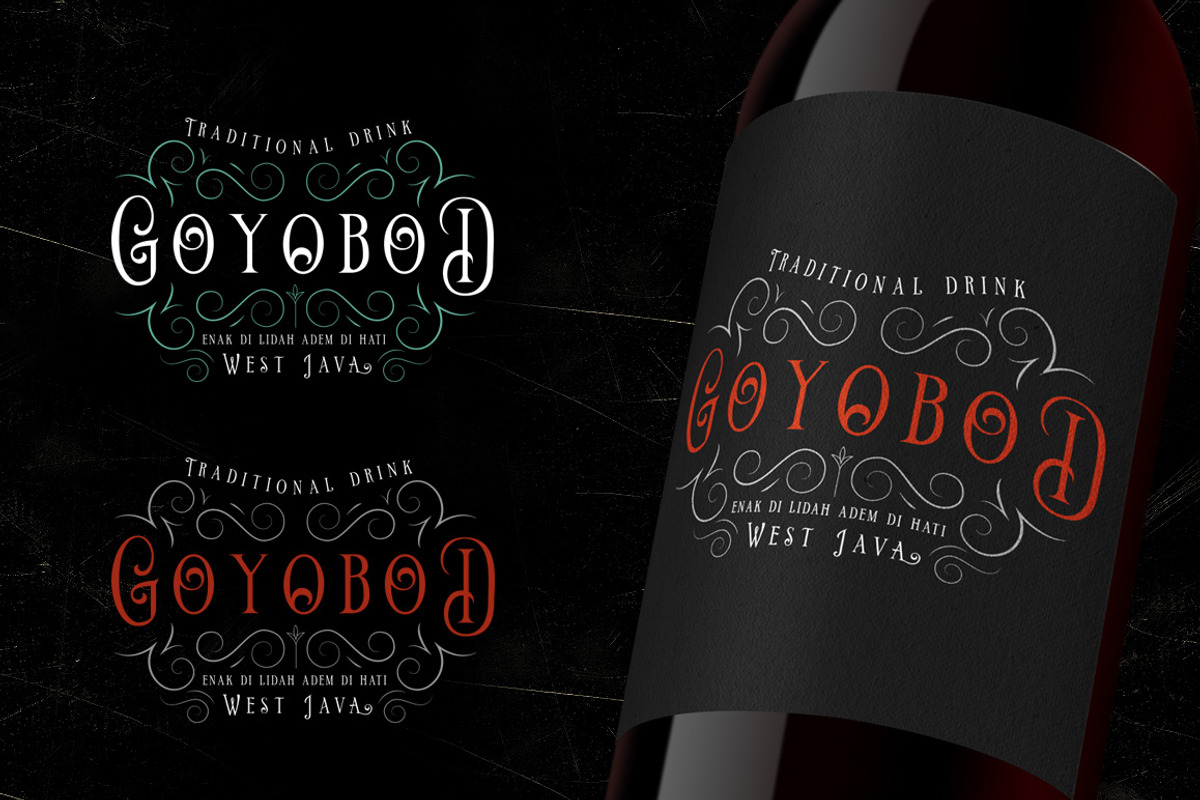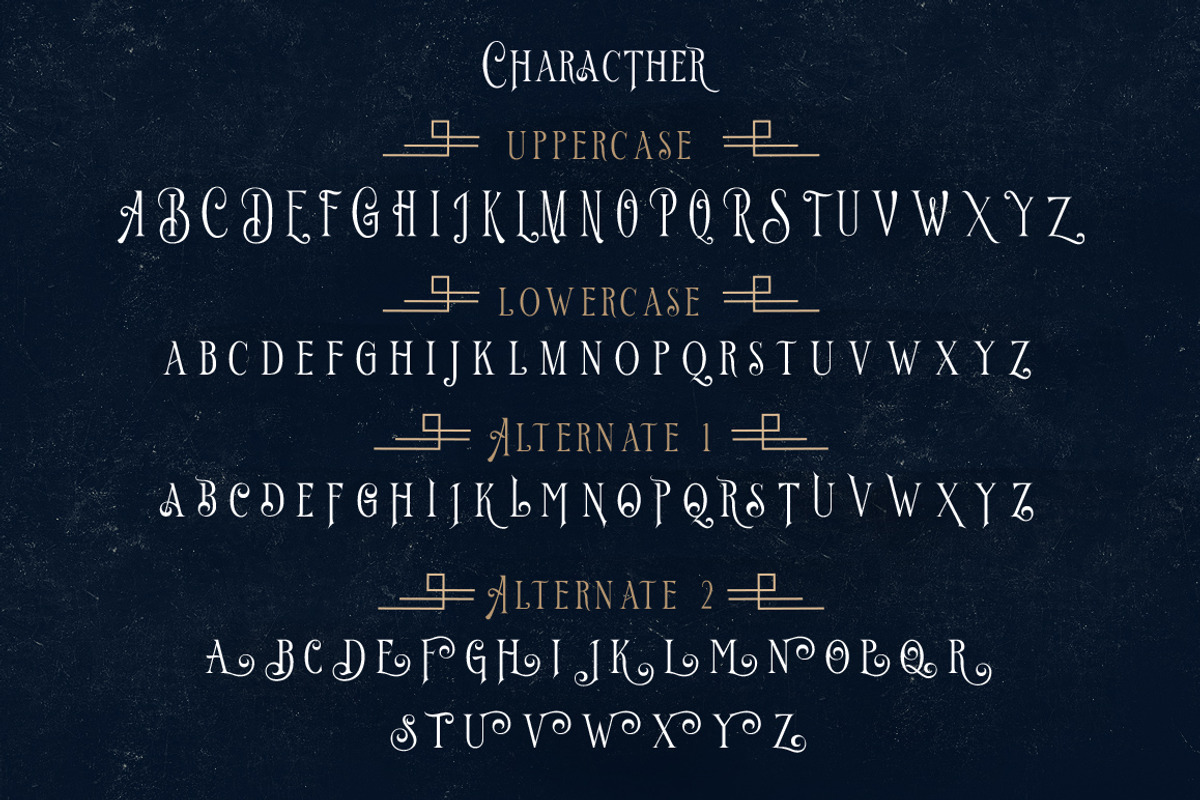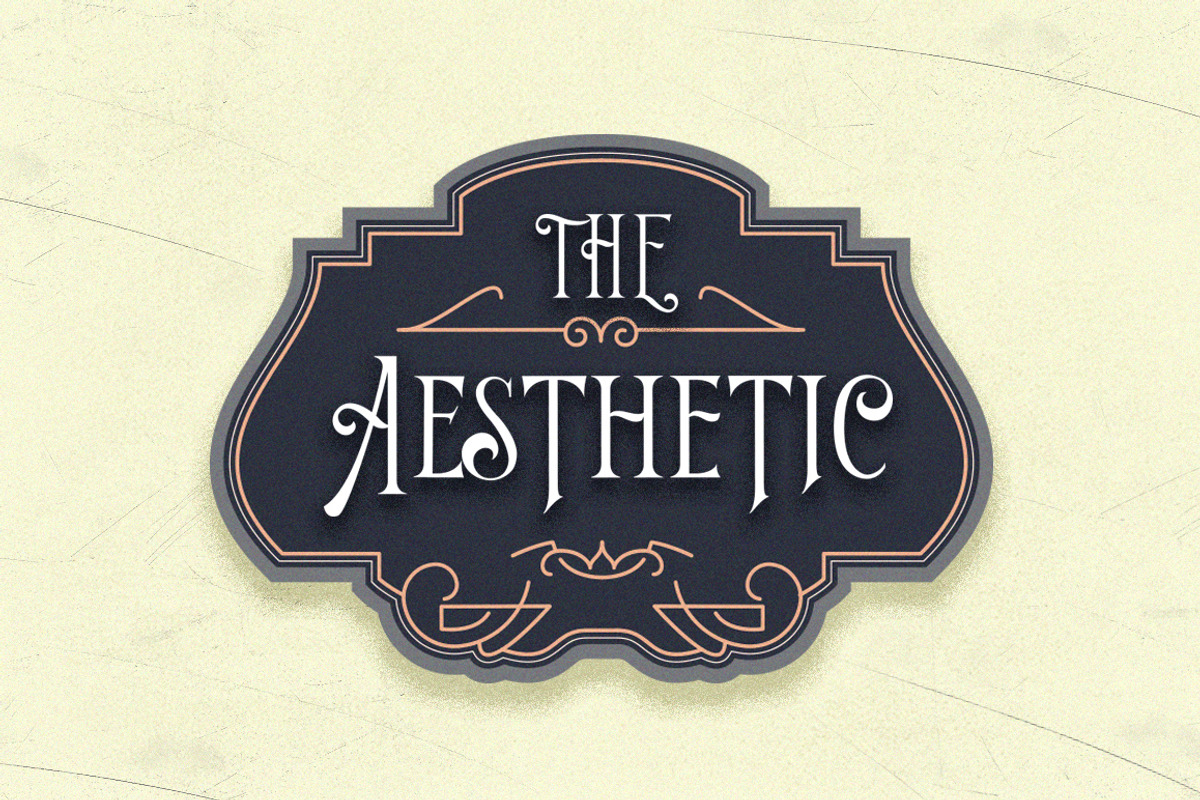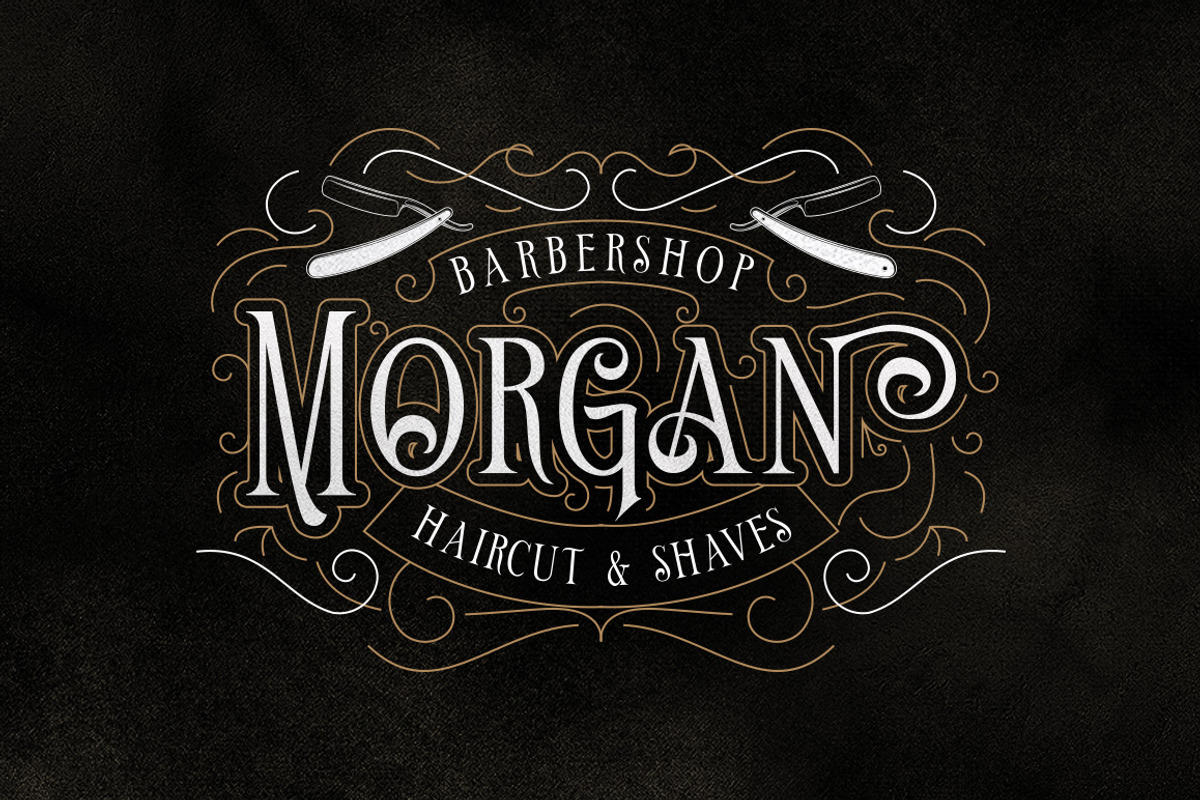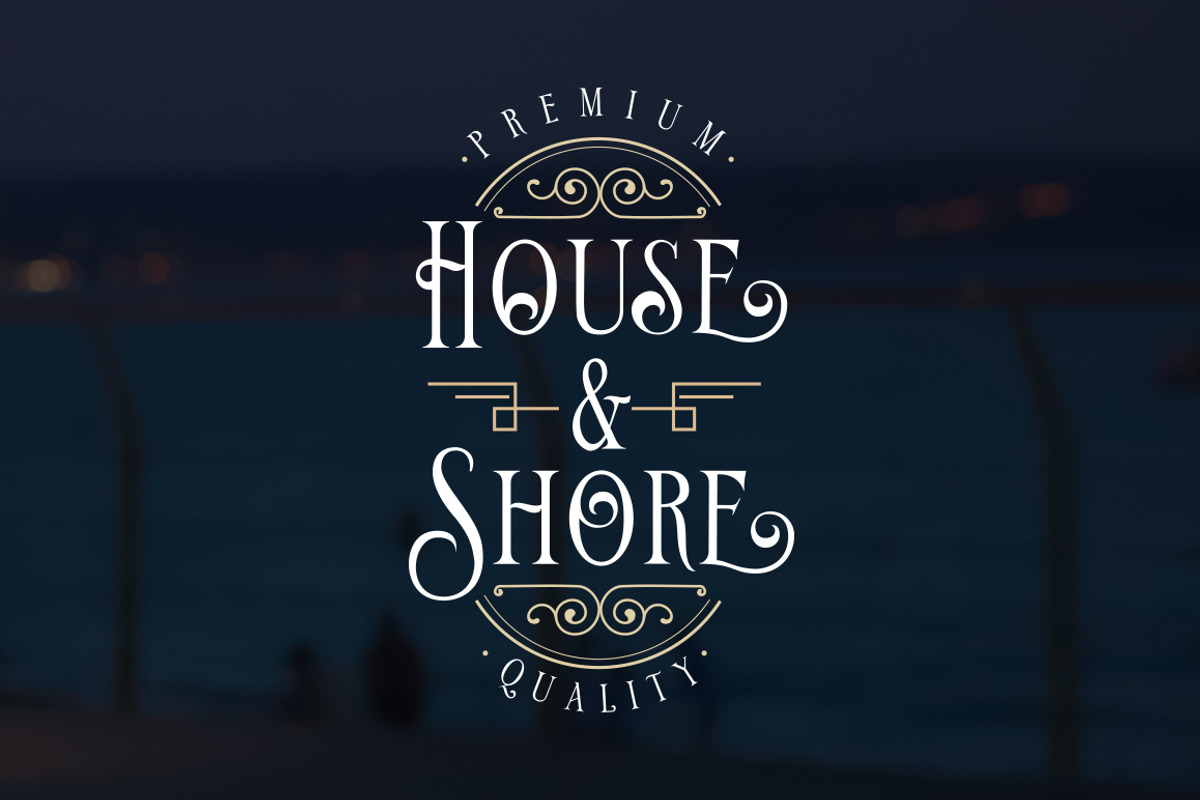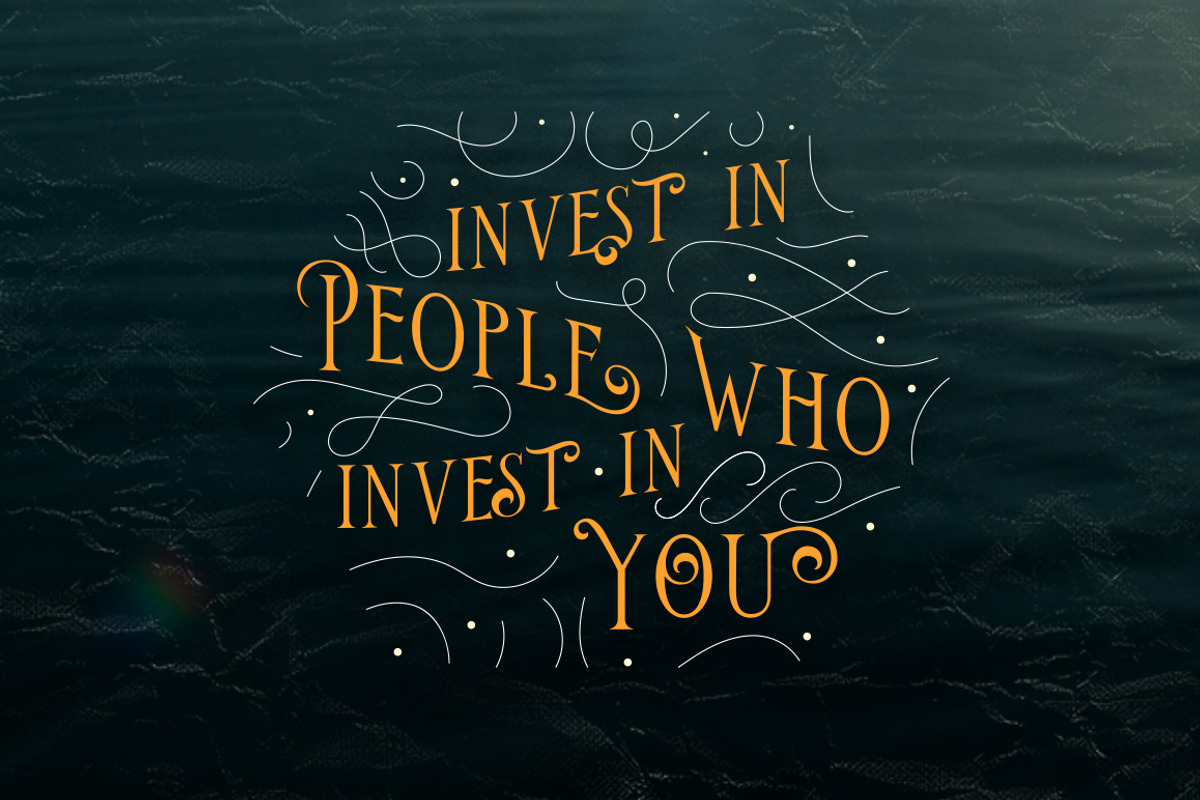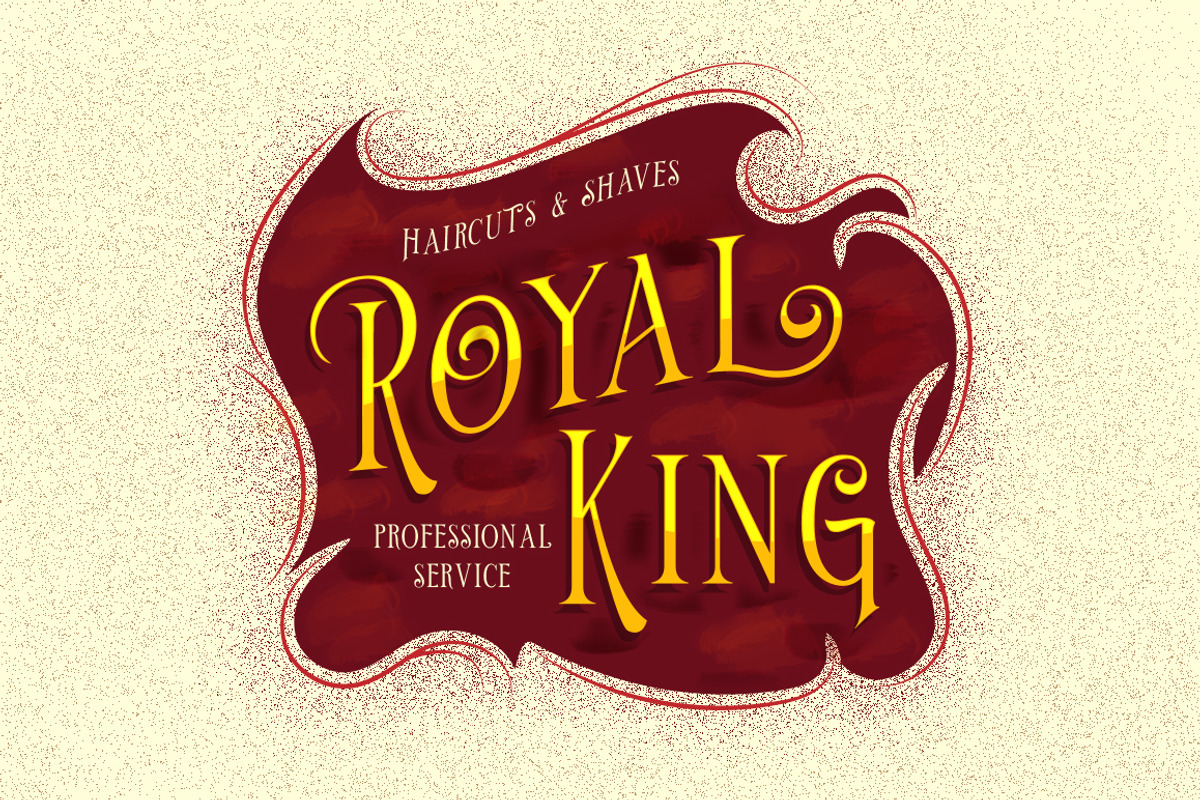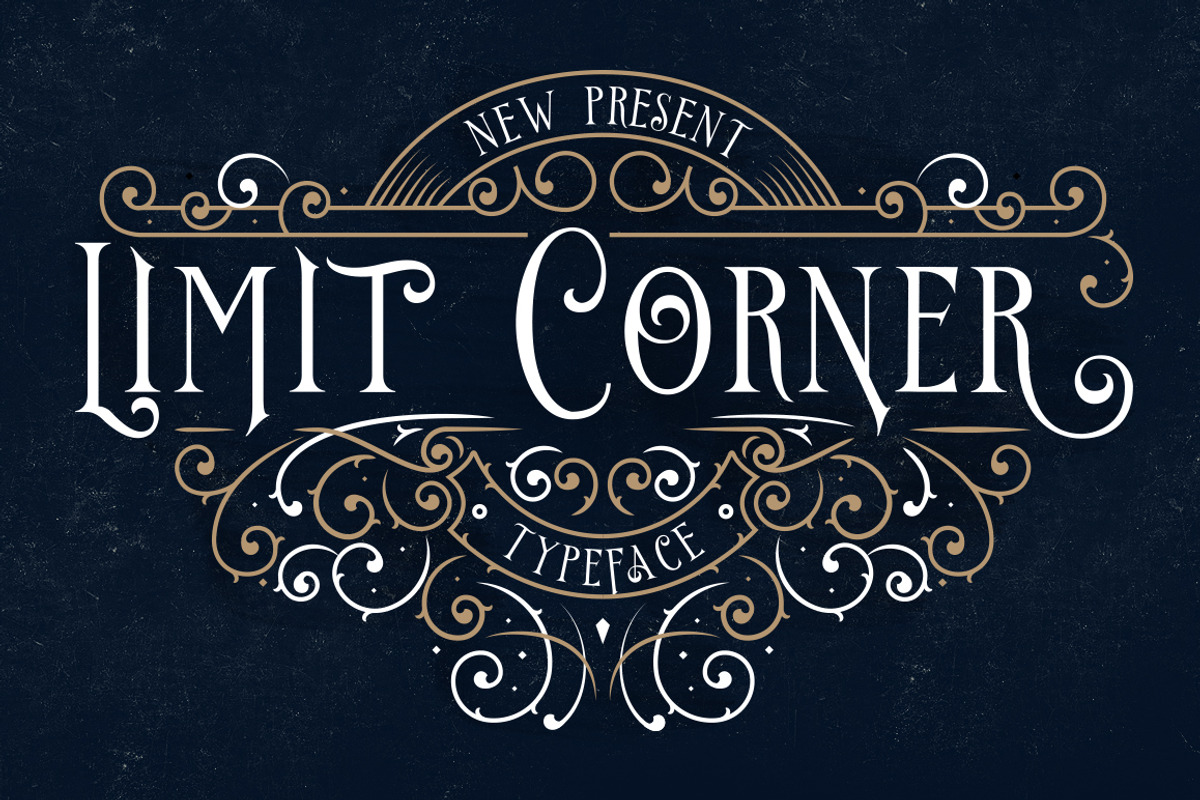
Limit Corner Typeface + Extras
Introducing new serif display typeface its called Limit Corner.
Inspired by victorian style with classic style .OpenType features some characters that allows you to mix and match pairs of letters to fit in your designs. It’s an all caps typeface, with strong and sleek letters.
It features over 50 stylised alternatives, offering an infinite opportunity to customise and create logos, headlines, titling, product packaging, labeling, logo, classic shop, badges, movie title, t-shirt, posters, label, greetingcard, letterhead, book cover, etc.